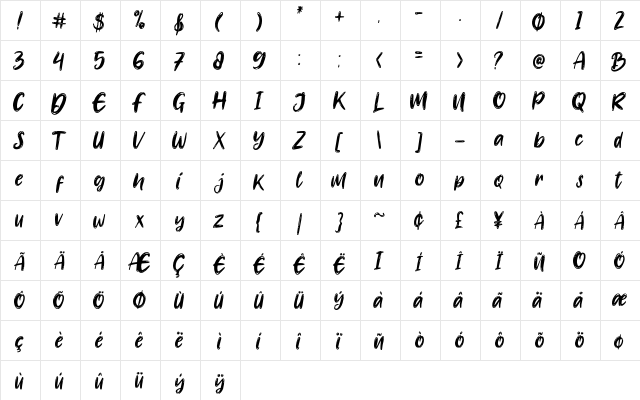
Banyu langits Regular
Design Context for Banyu langits Typeface
Banyu langits is a composed and adaptable typeface that performs quietly and consistently across a wide range of design contexts.